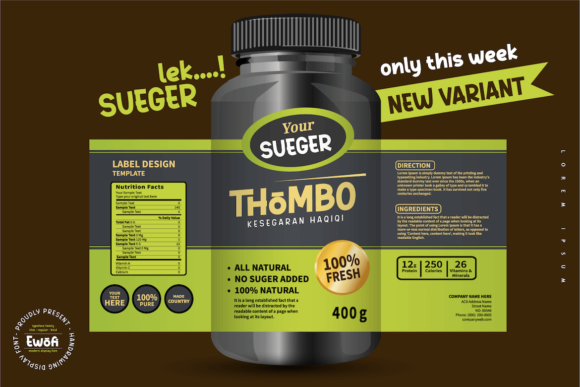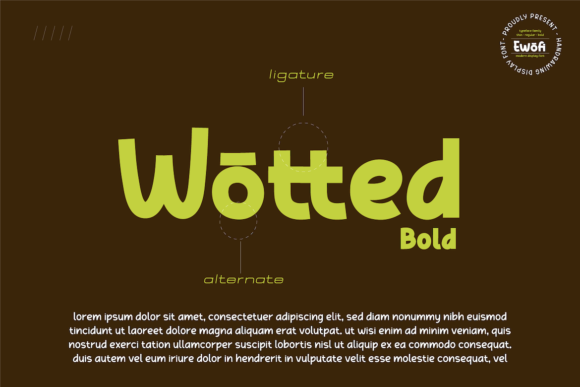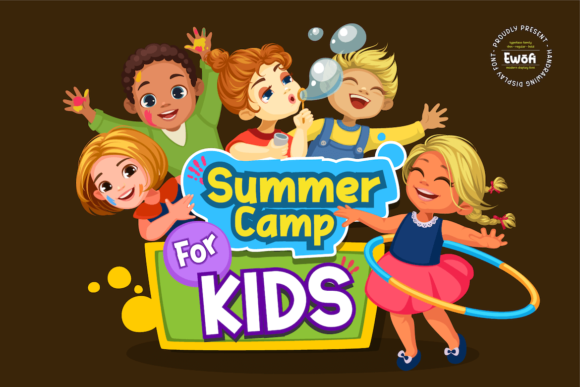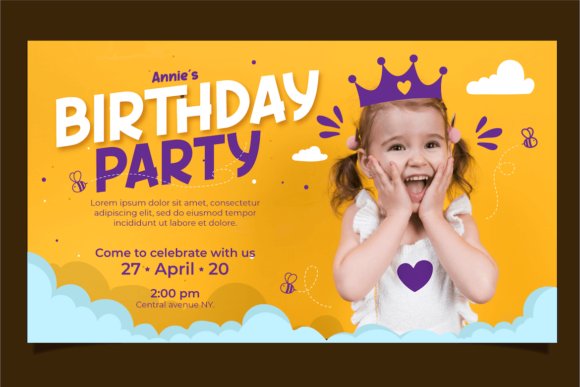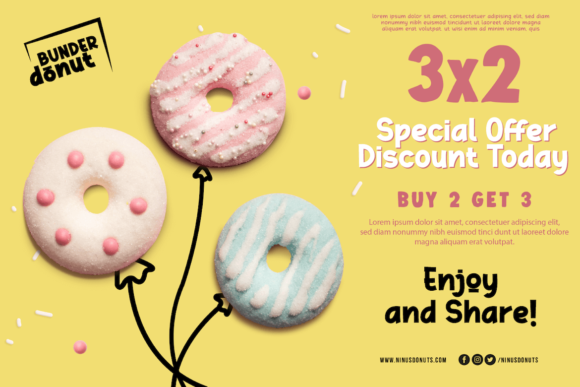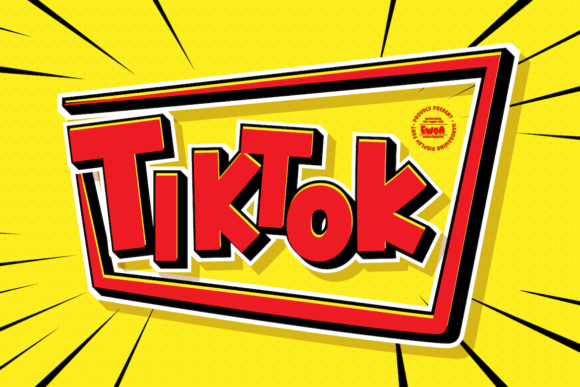
Ewofi Font: The Ultimate Game-Changer for Designers and Crafters
In the world of typography, fonts play a vital role in making or breaking a design. A perfect font can elevate your project from ordinary to extraordinary, while a bland one can leave it dull and uninteresting. If you’re a designer or crafter looking for a font that can instantly make your designs stand out, look no further than Ewofi Font. In this article, we’ll dive into the world of Ewofi, exploring its unique features, benefits, and uses.
What is Ewofi Font?
Ewofi is a modern display font that boasts a cool, thick lettered, and quirky style. Its unique design makes it perfect for adding a touch of personality to any project. Whether you’re working on a logo, branding materials, or social media graphics, Ewofi is sure to turn heads. This font is not just another ordinary font; it’s a statement piece that can instantly elevate your designs.
Key Features of Ewofi Font
- Cool and Quirky Design: Ewofi’s design is undoubtedly one of its standout features. Its quirky and unique style makes it perfect for designers who want to add a touch of personality to their work.
- Thick Lettered: The font’s thick lettering makes it highly legible, even at smaller sizes. This feature is particularly useful for designs that require bold and eye-catching typography.
- Modern Display Font: Ewofi is a modern display font that is perfect for headlines, titles, and other display purposes. Its modern design ensures that your designs look fresh and up-to-date.
- Highly Versatile: Ewofi is a highly versatile font that can be used for a wide range of projects, from logos and branding materials to social media graphics and posters.
Benefits of Using Ewofi Font
So, why should you choose Ewofi Font for your next project? Here are just a few benefits of using this amazing font:
- Instantly Elevate Your Designs: Ewofi’s unique design makes it perfect for adding a touch of personality to any project. Its quirky style can instantly elevate your designs and make them stand out.
- Save Time and Effort: With Ewofi, you don’t have to spend hours searching for the perfect font. This font is designed to be highly legible and versatile, saving you time and effort in the design process.
- Perfect for Social Media: In today’s digital age, social media graphics are more important than ever. Ewofi’s modern design and quirky style make it perfect for social media graphics that need to stand out.
Who Can Benefit from Ewofi Font?
Ewofi Font is perfect for a wide range of designers and crafters, including:
- Graphic Designers: Graphic designers can use Ewofi to add a touch of personality to their designs, from logos and branding materials to social media graphics and posters.
- Crafters: Crafters can use Ewofi to create unique and eye-catching projects, from handmade cards and invitations to DIY signs and decorations.
- Social Media Managers: Social media managers can use Ewofi to create engaging and shareable social media graphics that stand out in crowded feeds.
Tips for Using Ewofi Font
Here are a few tips for getting the most out of Ewofi Font:
- Experiment with Different Sizes: Ewofi looks great at a wide range of sizes, from small headlines to large display pieces. Experiment with different sizes to find the perfect fit for your project.
- Pair with Other Fonts: Ewofi can be paired with other fonts to create a unique and eye-catching design. Try pairing it with a clean sans-serif font for a bold and modern look.
- Use for Headlines and Titles: Ewofi is perfect for headlines and titles, where its bold and quirky style can really shine.
In conclusion, Ewofi Font is a game-changer for designers and crafters looking to add a touch of personality to their projects. Its unique design, thick lettering, and modern style make it perfect for a wide range of projects, from logos and branding materials to social media graphics and posters. With its highly legible design and versatility, Ewofi is sure to become a go-to font for designers and crafters everywhere.